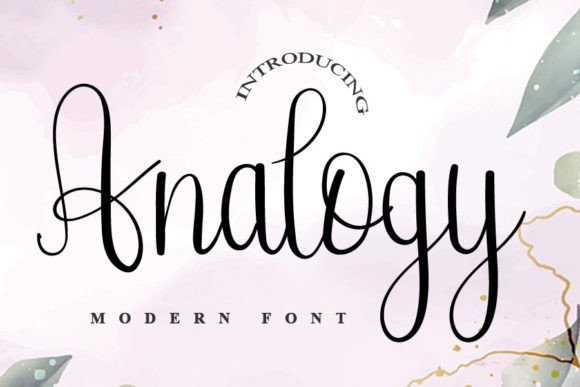
The Power of Analogy Font: Elevate Your Designs with Elegance
Have you ever been in the middle of a design project, and suddenly, you’re stuck on finding the perfect font? I recall a recent experience where I was working on a wedding invitation project, and my client requested a font that was both elegant and unique. After hours of searching, I stumbled upon Analogy Font, and it instantly became the perfect fit. In this article, we’ll dive into the world of Analogy Font, exploring its features, uses, and benefits.
A Personal Review of Analogy Font
As a designer, I’m always on the lookout for fonts that can elevate my projects. Here’s my honest review of Analogy Font:
• ✨ Fresh and beautiful design that adds a touch of elegance to any project
• ✅ Simple and unique, making it versatile for various design purposes
• ⚡️ Perfect for YouTube banners, cover logo mockups, wedding invitations, ID cards, flyers, and crafts
• 🌟 Excellent for branding and advertising materials, as it gives a professional and sophisticated look
• 🤔 Limited availability of stylistic alternates, which might restrict some creative freedom
• ⚠️ Not ideal for body text or long paragraphs, as it’s more suited for headlines and titles
The Backstory of Analogy Font
Analogy Font was designed with the intention of creating a fresh and beautiful font that could cater to various design purposes. The designer aimed to create a font that was both simple and unique, making it perfect for designers, crafters, and creative hobbyists. Although the designer’s background is unknown, it’s clear that Analogy Font was crafted with love and attention to detail.
Font Name Analogy Font
Author ABBAsalam
Q: What is Analogy Font best suited for?
A: Analogy Font is perfect for YouTube banners, cover logo mockups, wedding invitations, ID cards, flyers, and crafts.
Q: Is Analogy Font available in different weights or styles?
A: Currently, Analogy Font is available in a single weight, but it’s possible to experiment with different styles using OpenType features.